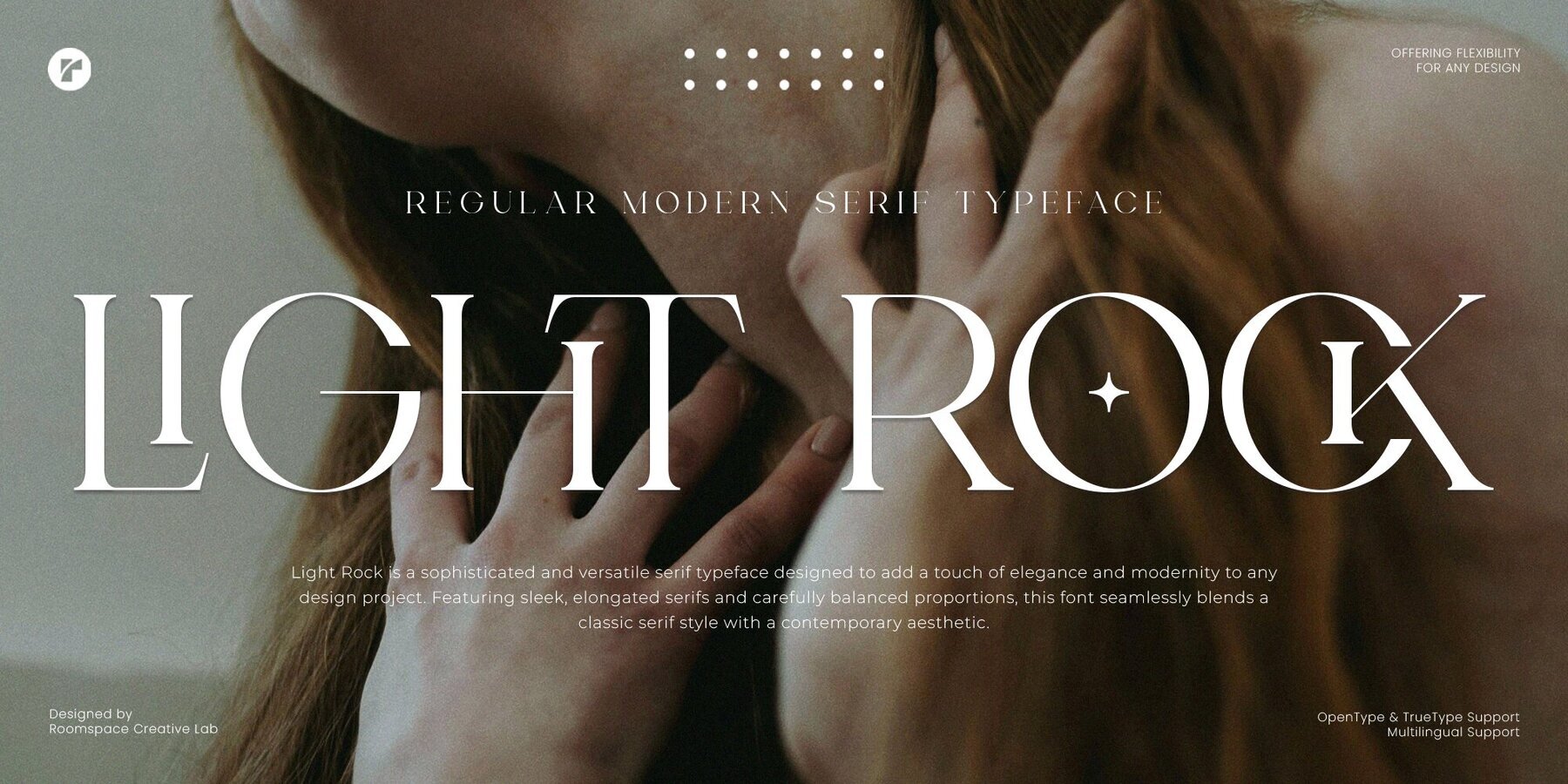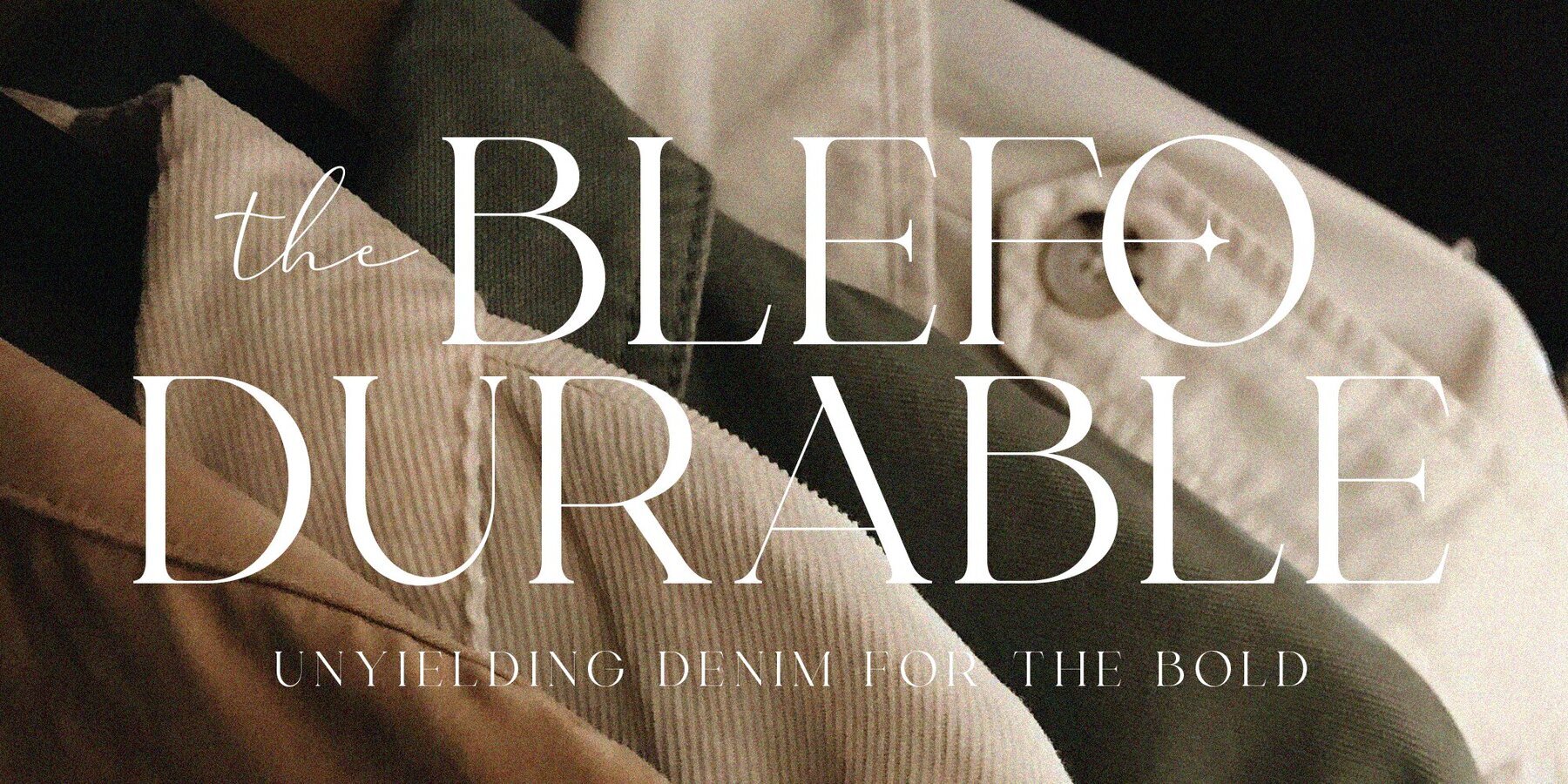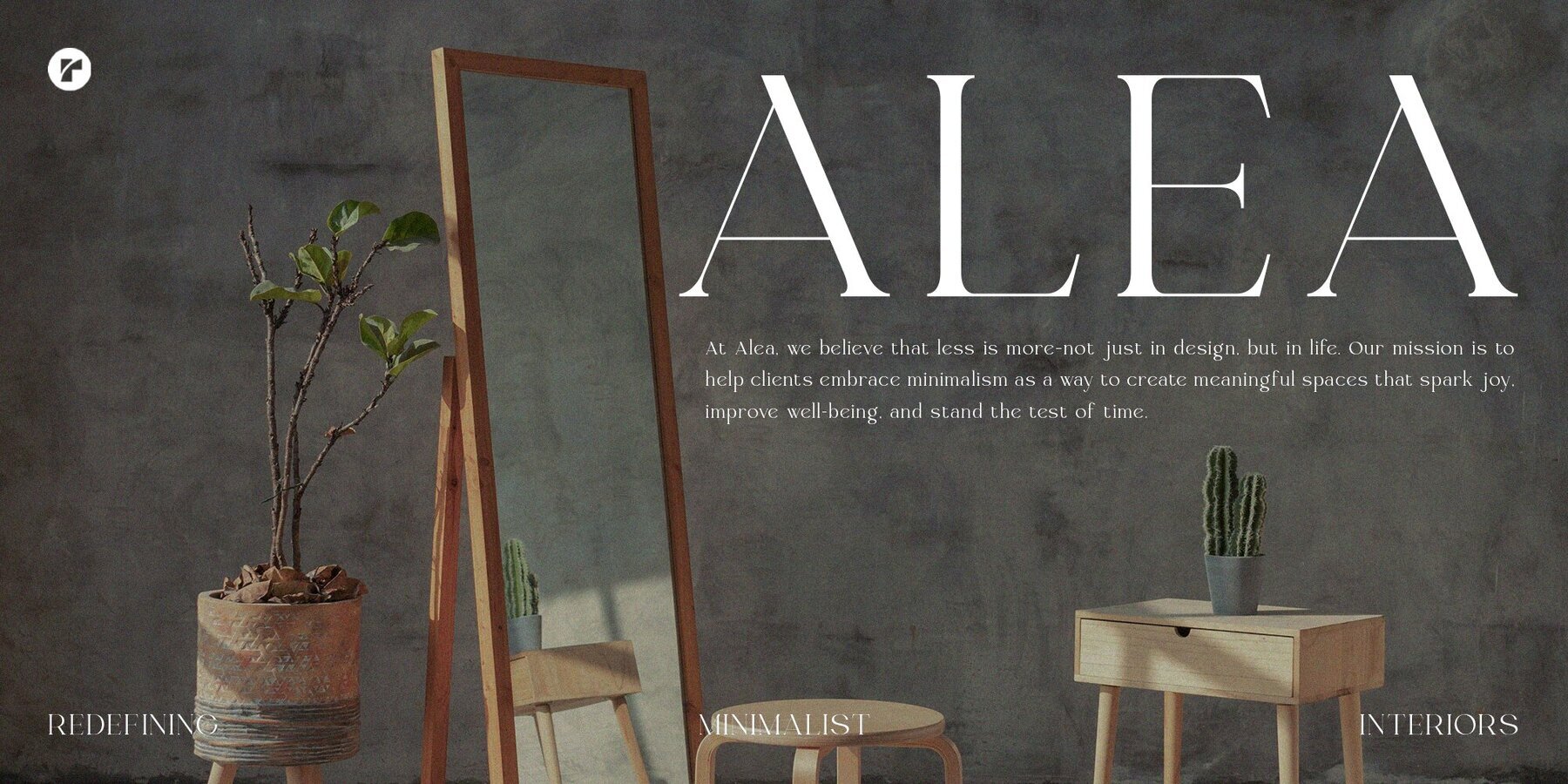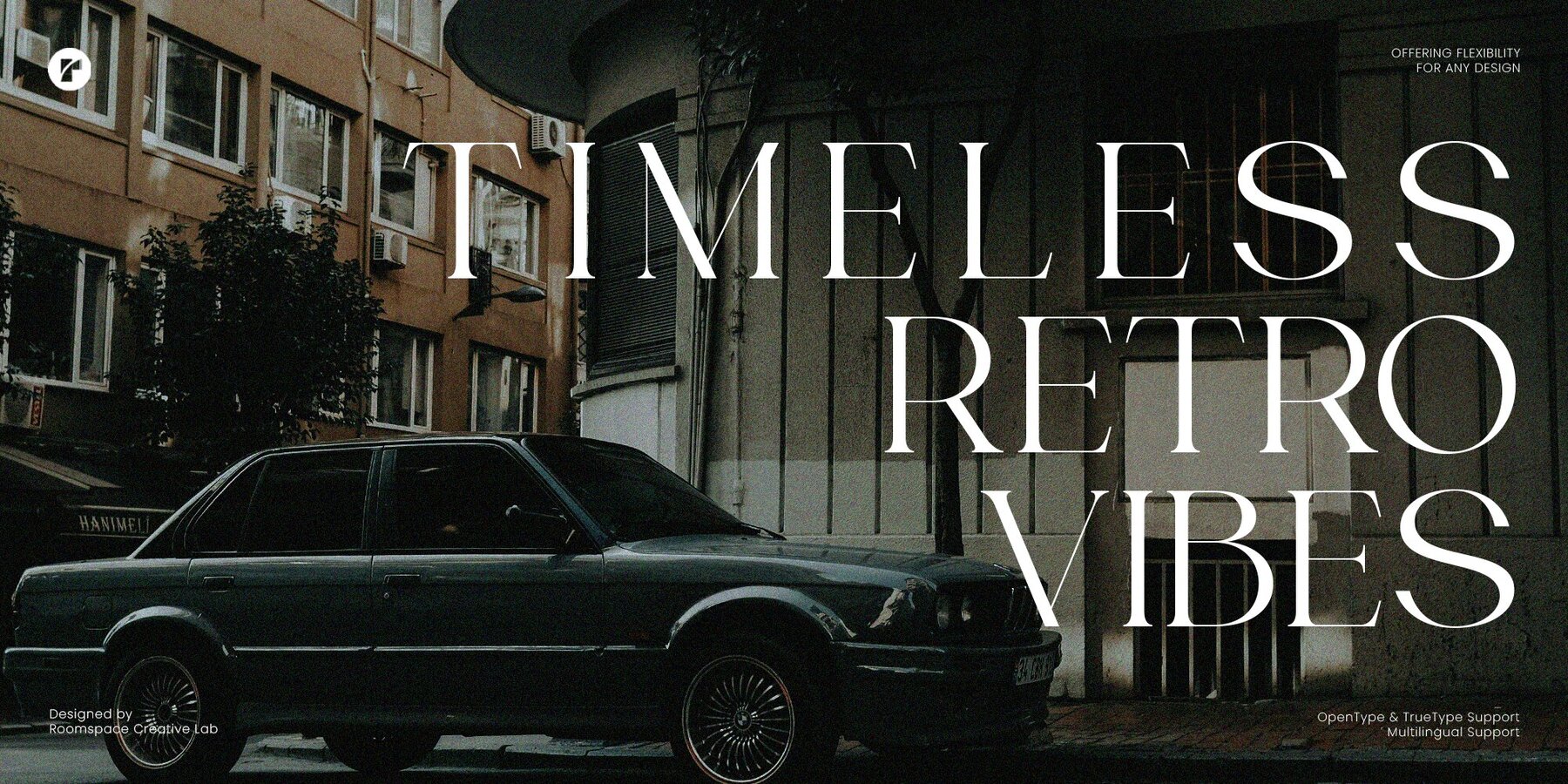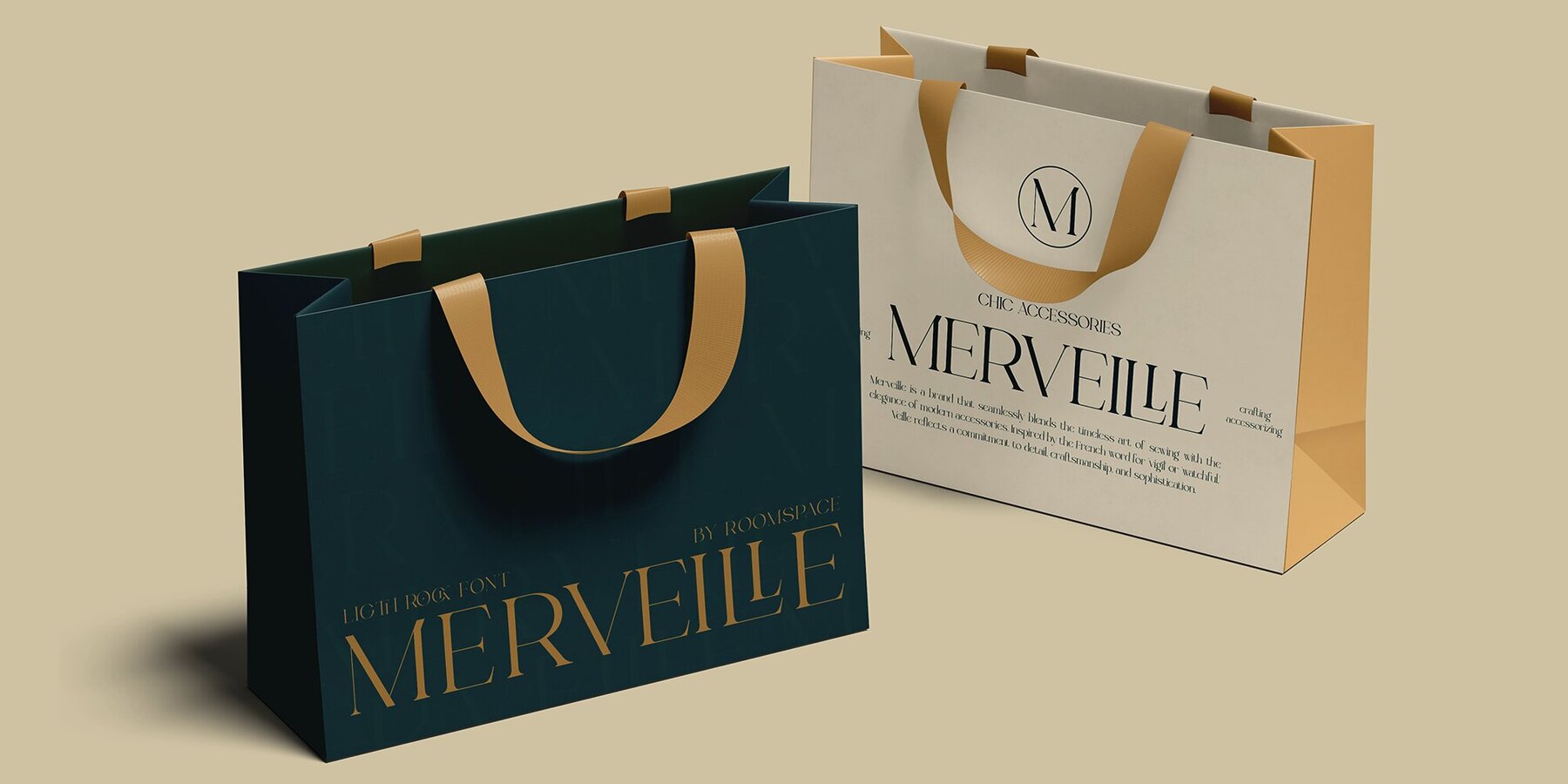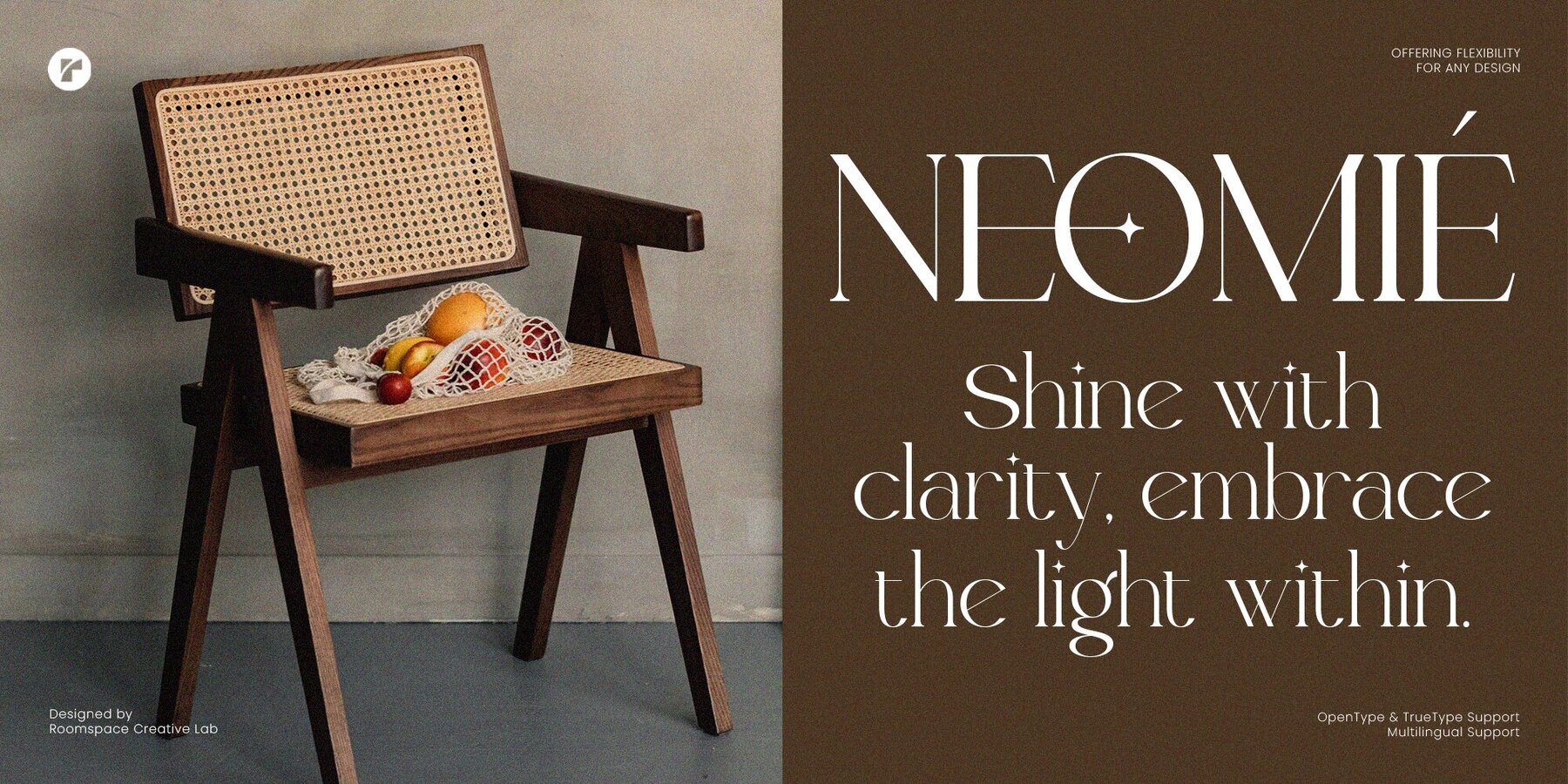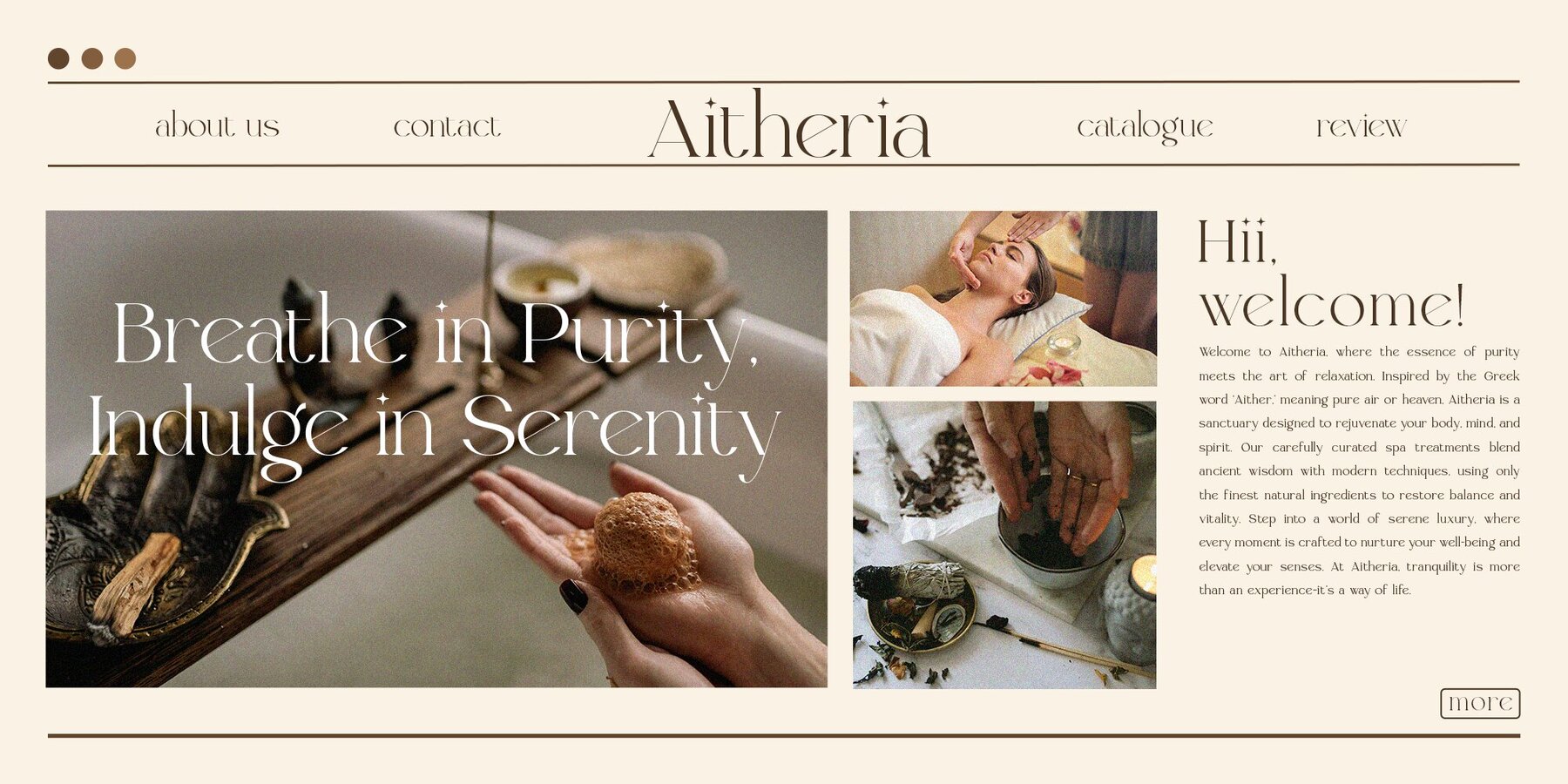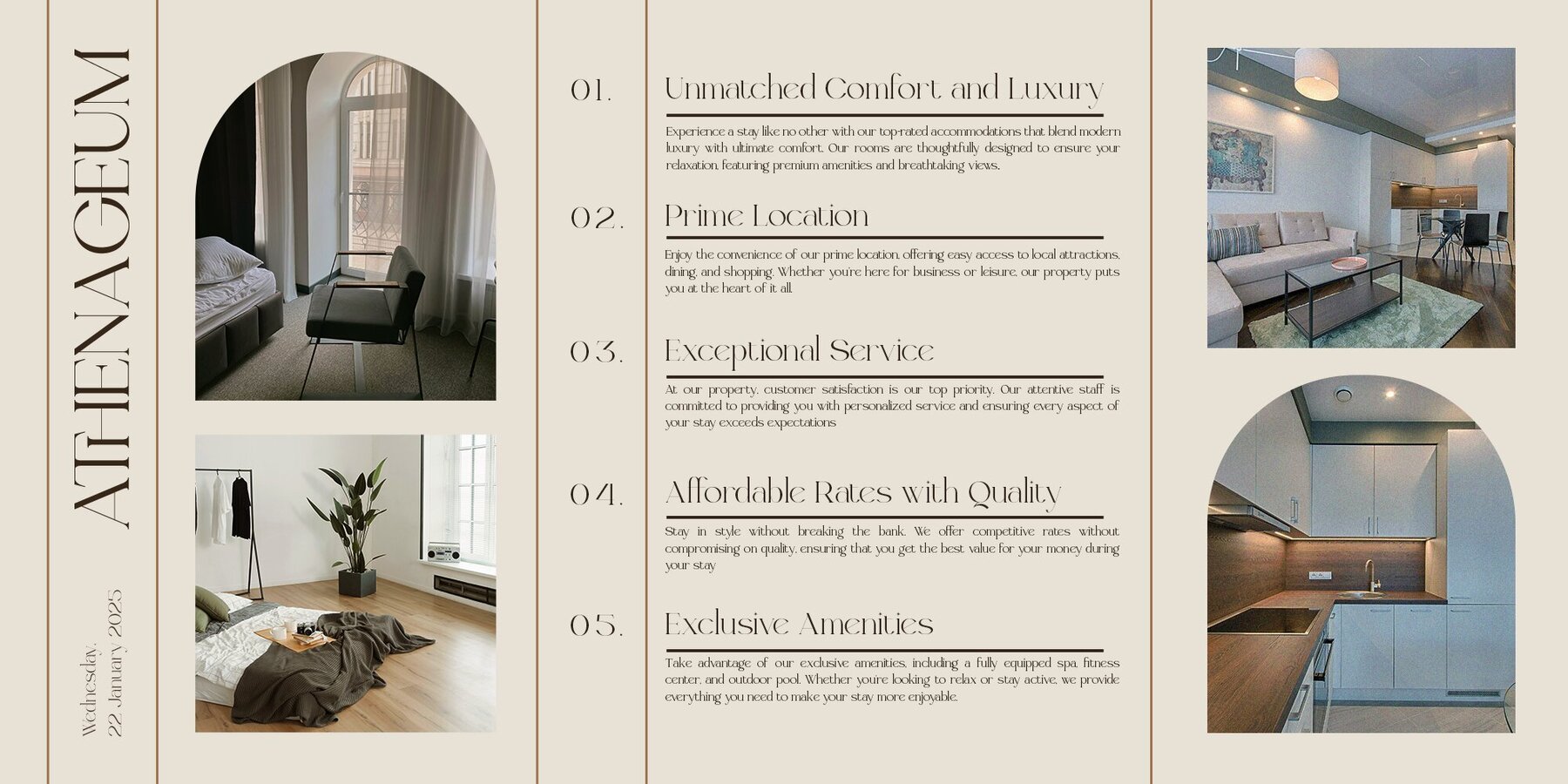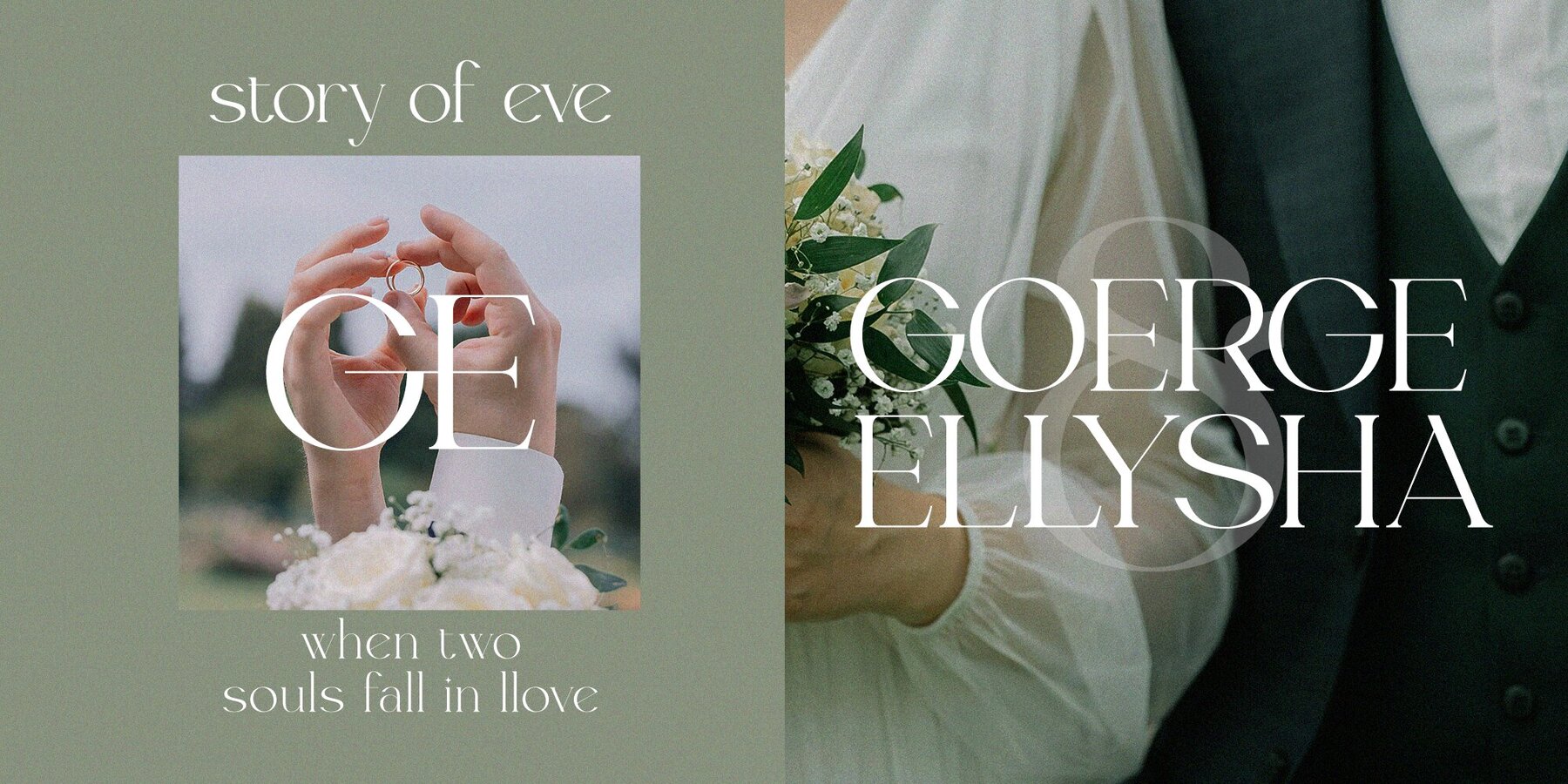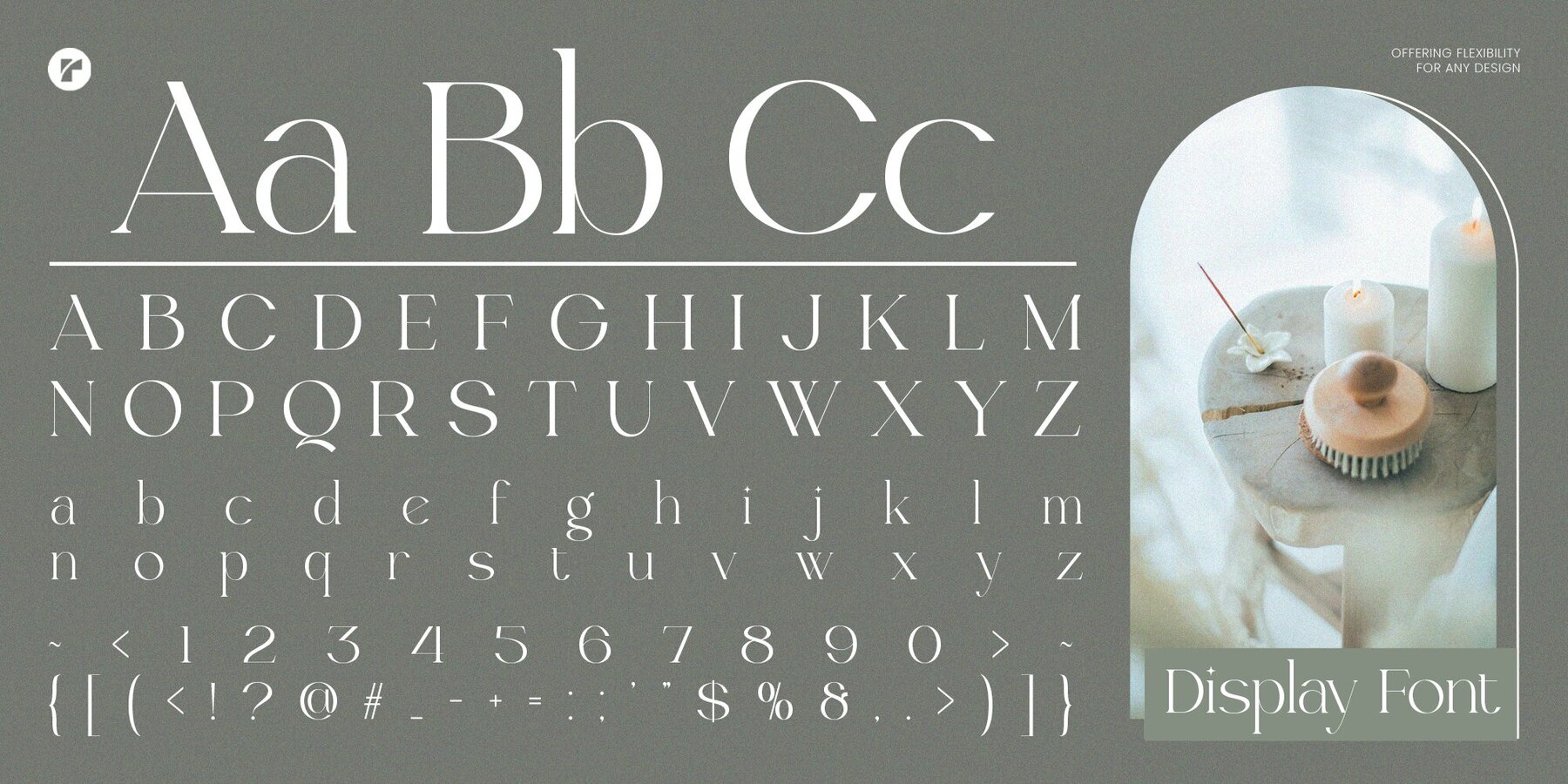
Light Rock Font
Light Rock Regular
Light Rock is a refined serif font that seamlessly combines modern elegance with timeless sophistication. This versatile typeface exudes luxury and class, making it an ideal choice for logos, branding, editorial layouts, wedding invitations, and upscale social media graphics. With sleek lines and balanced proportions, Light Rock offers a premium aesthetic that is both stylish and sophisticated. Its elegant serif details provide a polished yet contemporary feel, perfect for those who appreciate creative refinement.
Crafted for flexibility and versatility, Light Rock includes unique ligatures and alternates, allowing for personalized and distinctive typography. It supports multiple languages, ensuring your designs resonate on a global scale. Key features include regular style variations for dynamic design options, a full set of uppercase and lowercase characters, numbers, punctuation, and easy installation for seamless use.
Whether you're creating luxury branding, classy packaging, or elegant digital graphics, Light Rock brings a touch of sophistication and charm to every project. Enhance your designs with this timeless serif font that blends modern with classic elegance.